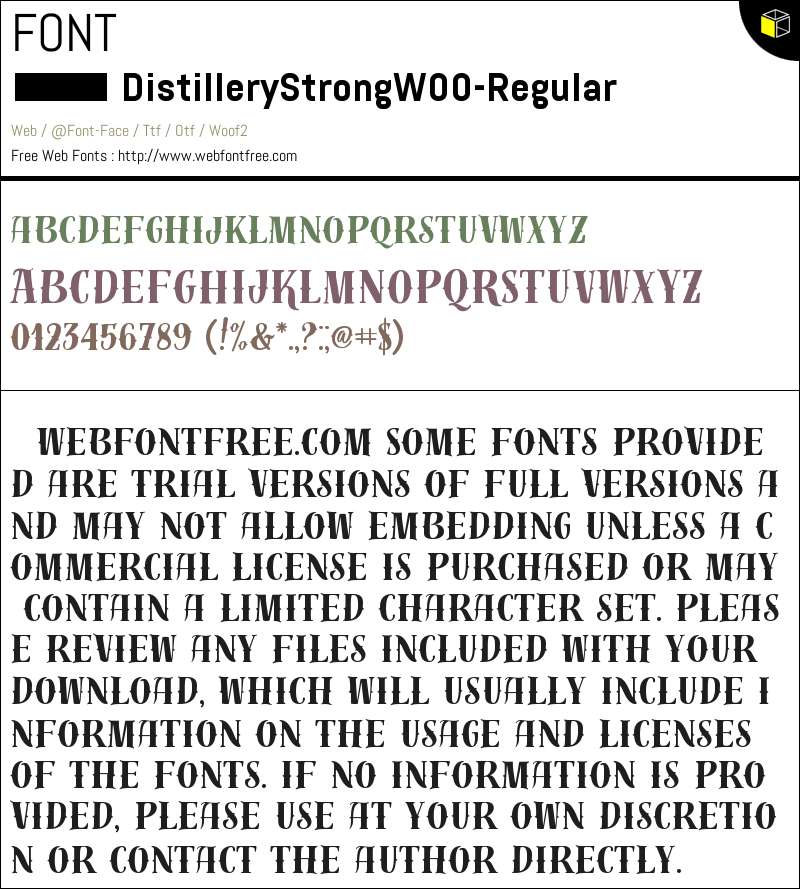
Distillery Font Free . In script > various 70,157. Display, strong, script, caps, and icons. Adistillers font à by canopus. Discover a world of captivating typography for your creative projects. The fonts’ influences are in lettering from different eras and styles. Every font is free to download! Explore distillery fonts at myfonts. In script > various 70,157 downloads (1. The distillery set is a collection of 5 fonts: Size adistillers font à by canopus. The distillery set is a collection of 5 fonts: The fonts’ influences are in. Display, strong, script, caps, and icons.
Discover a world of captivating typography for your creative projects. Display, strong, script, caps, and icons. The distillery set is a collection of 5 fonts: Display, strong, script, caps, and icons. Click to find the best 2 free fonts in the distillery style. The fonts’ influences are in lettering from different. In script > various 70,157. Size adistillers font à by canopus. Every font is free to download!
Distillery Font Free The distillery set is a collection of 5 fonts: Adistillers font à by canopus. Unleash your design potential today! The fonts' influences are in lettering from different. The distillery set is a collection of 5 fonts: Display, strong, script, caps, and icons. The distillery set is a collection of 5 fonts: The fonts’ influences are in lettering from different eras and styles. Size adistillers font à by canopus. Every font is free to download! Explore distillery fonts at myfonts. In script > various 70,157. Discover a world of captivating typography for your creative projects. The fonts’ influences are in lettering from different. The distillery set is a collection of 5 fonts: The distillery set is a collection of 5 fonts:
Distillery Fonts from Sudtipos Distillery Font Free Discover a world of captivating typography for your creative projects. The fonts’ influences are in. The distillery set is a collection of 5 fonts: The fonts’ influences are in lettering from different eras and styles. The distillery set is a collection of 5 fonts: Click to find the best 2 free. Distillery Font Free.
Distillery Font Fontspring Distillery Font Free The distillery set is a collection of 5 fonts: Adistillers font à by canopus. Every font is free to download! The fonts’ influences are in. Discover a world of captivating typography for your creative projects. Size adistillers font à by canopus. The fonts’ influences are in lettering from different. The distillery set is a collection of 5 fonts: Click to. Distillery Font Free.
Bourbon whiskey Font Download Free for Desktop & font Distillery Font Free Every font is free to download! The fonts’ influences are in lettering from different. Display, strong, script, caps, and icons. The distillery set is a collection of 5 fonts: Display, strong, script, caps, and icons. The fonts’ influences are in lettering from different. Display, strong, script, caps, and icons. Discover a world of captivating typography for your creative projects. The. Distillery Font Free.
Distillery Strong W00 Regular Fonts Downloads Distillery Font Free Discover a world of captivating typography for your creative projects. Display, strong, script, caps, and icons. The distillery set is a collection of 5 fonts: Display, strong, script, caps, and icons. The fonts’ influences are in lettering from different. Every font is free to download! The fonts’ influences are in. Unleash your design potential today! Display, strong, script, caps, and. Distillery Font Free.
65+ Best Whiskey Fonts (FREE / Premium) 2024 Hyperpix Distillery Font Free Click to find the best 2 free fonts in the distillery style. The fonts’ influences are in lettering from different. Display, strong, script, caps, and icons. The fonts' influences are in lettering from different. Display, strong, script, caps, and icons. In script > various 70,157. Display, strong, script, caps, and icons. Discover a world of captivating typography for your creative. Distillery Font Free.
25 Whiskey Fonts To Add a Vintage Touch To Any Design Creative Market Distillery Font Free Every font is free to download! The distillery set is a collection of 5 fonts: The fonts' influences are in lettering from different. Display, strong, script, caps, and icons. The distillery set is a collection of 5 fonts: Adistillers font à by canopus. Display, strong, script, caps, and icons. Unleash your design potential today! The fonts’ influences are in. Distillery Font Free.
Bourbon Grotesque Free Font Pixlov Distillery Font Free The fonts’ influences are in lettering from different. Display, strong, script, caps, and icons. Size adistillers font à by canopus. The distillery set is a collection of 5 fonts: The fonts' influences are in lettering from different. The fonts’ influences are in lettering from different. Distillery Font Free.
Bourbon Typeface MasterBundles Distillery Font Free The distillery set is a collection of 5 fonts: Every font is free to download! The distillery set is a collection of 5 fonts: Size adistillers font à by canopus. The fonts' influences are in lettering from different. The fonts’ influences are in lettering from different. The distillery set is a collection of 5 fonts: The distillery set is a. Distillery Font Free.
Bourbon font & Desktop font in 2020 Typography fonts, Bourbon Distillery Font Free Display, strong, script, caps, and icons. Size adistillers font à by canopus. Discover a world of captivating typography for your creative projects. The fonts' influences are in lettering from different. Click to find the best 2 free fonts in the distillery style. Unleash your design potential today! Display, strong, script, caps, and icons. The distillery set is a collection of. Distillery Font Free.